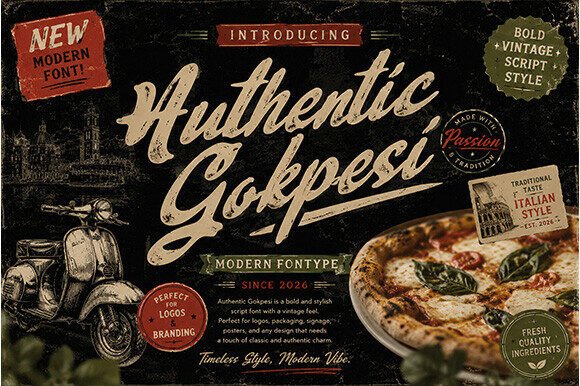
Discover the Charm of Authentic Gokpesi: A Vintage Script Font
I’ll never forget the design project that led me to Authentic Gokpesi. I was working on a branding project for a local pizzeria, and I was struggling to find the perfect font that captured the warmth and heritage of their Italian roots. That’s when I stumbled upon Authentic Gokpesi, a bold and stylish vintage script font that instantly transported me to a charming Italian trattoria.
A Font that Embodies Passion and Heritage
Authentic Gokpesi is more than just a font – it’s an experience. With its heavy, textured brushstrokes and dynamic, forward-leaning slant, this font captures the unrefined romance of hand-painted storefront signage. It’s perfect for culinary branding, traditional pizzeria logos, artisanal product packaging, custom signage, and rustic menu headers.
What I Love About Authentic Gokpesi
• ✨ Unique texture: The font’s textured brushstrokes give it a handcrafted feel that’s hard to find in digital fonts.
• ✅ Highly legible: Despite its bold and ornate design, Authentic Gokpesi is surprisingly easy to read, even at smaller sizes.
• 💫 Emotional connection: This font instantly evokes a sense of warmth, passion, and heritage, making it perfect for brands that want to tell a story.
While Authentic Gokpesi is an amazing font, it’s not without its quirks. Here are a few things to keep in mind:
• 🤔 Limited use cases: Due to its bold and ornate design, Authentic Gokpesi may not be suitable for body text or more formal applications.
• ⚠️ Glyph limitations: While the font has a wide range of glyphs, some users may find that it lacks certain special characters or diacritical marks.
One of the best things about Authentic Gokpesi is its range of OpenType features and glyphs. Here are a few tips for getting the most out of these features:
• Stylistic alternates: Experiment with different stylistic alternates to find the perfect look for your design.
• Glyphs: Use glyphs to add special characters, such as ligatures, flourishes, and ornaments, to your text.
• OpenType features: Take advantage of OpenType features, such as kerning and tracking, to customize the font to your liking.
The Story Behind Authentic Gokpesi
Authentic Gokpesi was inspired by the charming storefronts of Italy, where hand-painted signage and vintage typography reign supreme. The font’s designer wanted to capture the essence of these storefronts and bring a touch of Italian heritage to designers and brands around the world.
What is Authentic Gokpesi? Authentic Gokpesi is a bold and stylish vintage script font designed to capture the essence of Italian heritage and charm.
What is Authentic Gokpesi best used for? Authentic Gokpesi is perfect for culinary branding, traditional pizzeria logos, artisanal product packaging, custom signage, and rustic menu headers.
Can I use Authentic Gokpesi for body text? While Authentic Gokpesi is highly legible, it’s best used as a display font or for short blocks of text due to its bold and ornate design.
Is Authentic Gokpesi available in different languages? Authentic Gokpesi supports a range of languages, but it’s best to check with the font’s designer or documentation for specific language support.